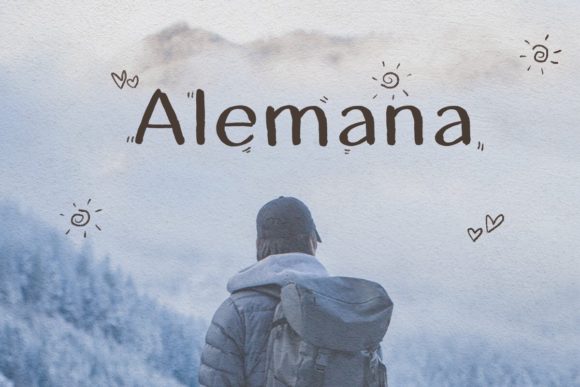
Introducing Alemana Font, an exquisite handwritten font that exudes charm and sophistication. Its meticulous design and enchanting style make it a perfect choice for adding a touch of magic to your creative projects.
Transport yourself into a world of captivating stories with Alemana's effortless flow. Unleash your imagination and create enchanting designs that resonate with your audience. This font's undeniable allure will leave a lasting impression, whether it's in your captivating posters, heartfelt greeting cards, or eye-catching social media posts.
With its inherent adaptability, Alemana Font seamlessly blends into various design concepts, allowing you to express your creativity without boundaries. Its elegant appearance brings a sense of refinement to logos, branding materials, and website designs. It's the perfect companion for projects that demand finesse and visual appeal.
Dive into a world of endless possibilities with Alemana Font. Let your creativity soar as you explore its versatility and bring life to your artistic visions. Make a bold statement with its distinct style and leave your audience spellbound. Experience the transformative power of Alemana Font today!